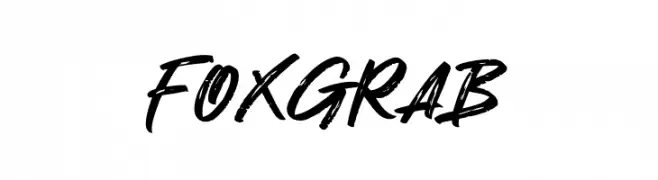
A bold decorative font with intricate floral patterns and a shadow effect.
A bold, artistic font with geometric and organic shapes, perfect for striking displays.
A bold, high-contrast decorative font with playful curves and sharp angles.
Elegant, handwritten script font.
A bold, geometric font with strong lines and unique negative space.
Bold, energetic display font with sports-themed icons.
A bold, playful typeface with rounded, bubbly characters.
A playful, bold font with rounded, bubble-like characters.
A bold, expressive brush-style font with a dynamic and energetic feel.
A bold, distressed font with a rugged, textured appearance.